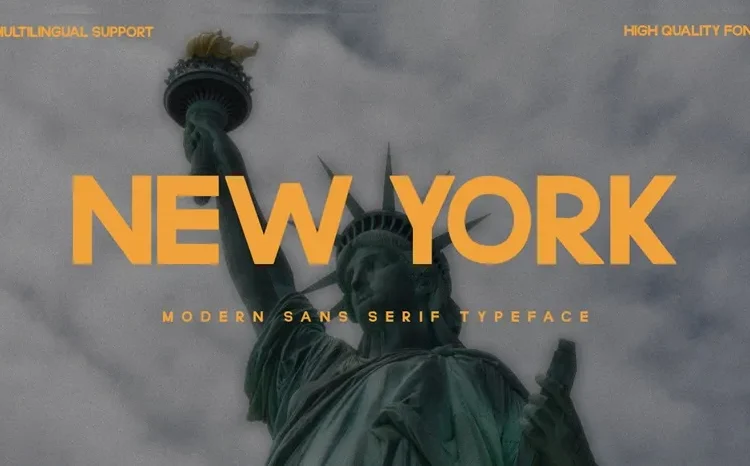
New York Font
New York is a modern sans serif font that exudes a timeless elegance, blending classical design elements with a contemporary aesthetic. With its clean, geometric forms, New York offers excellent readability across all sizes, making it a versatile choice for both display and text applications.
The typeface features a balanced character set, with soft curves complemented by sharp angles, creating a refined and polished look. Its adaptability makes it ideal for a wide range of projects, from professional branding to editorial layouts.
Perfect for those seeking a blend of sophistication and modernity, New York adds an exclusive and stylish feel to any design, capturing attention without overpowering the message.